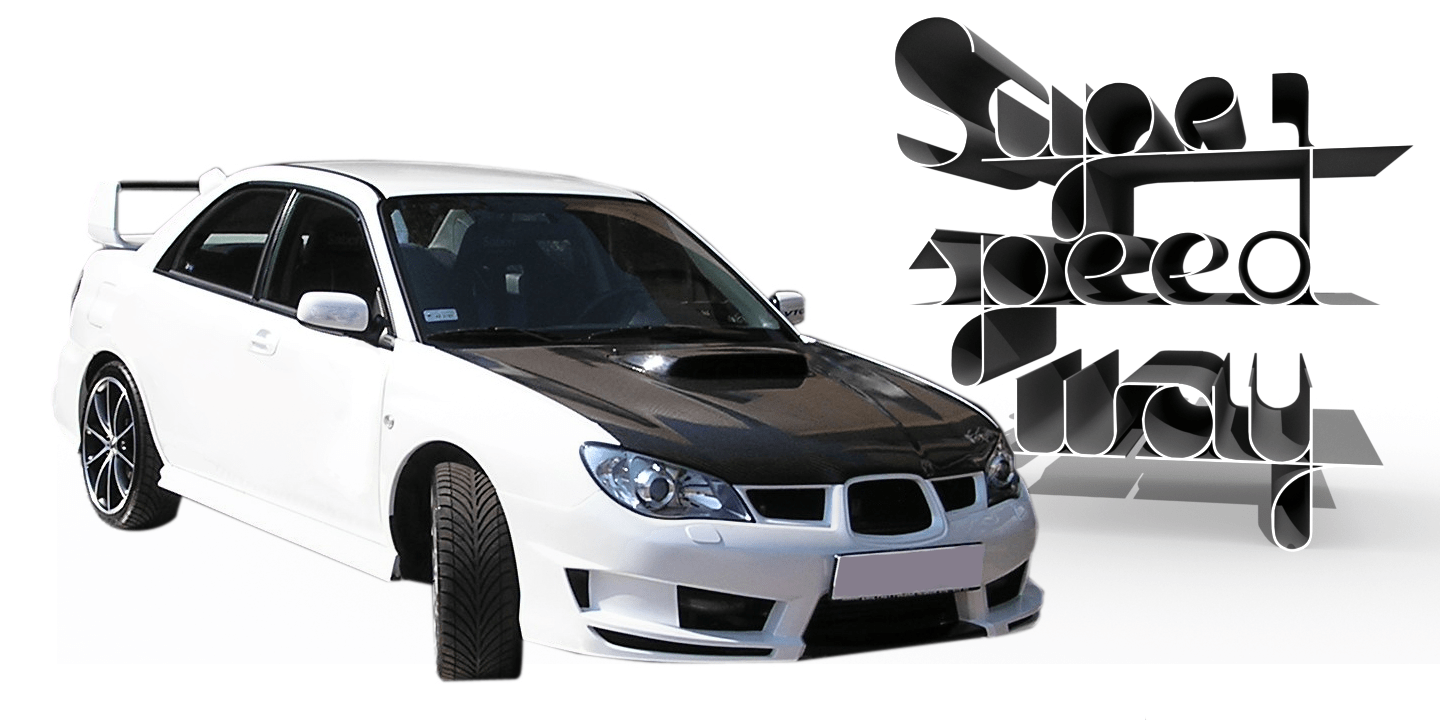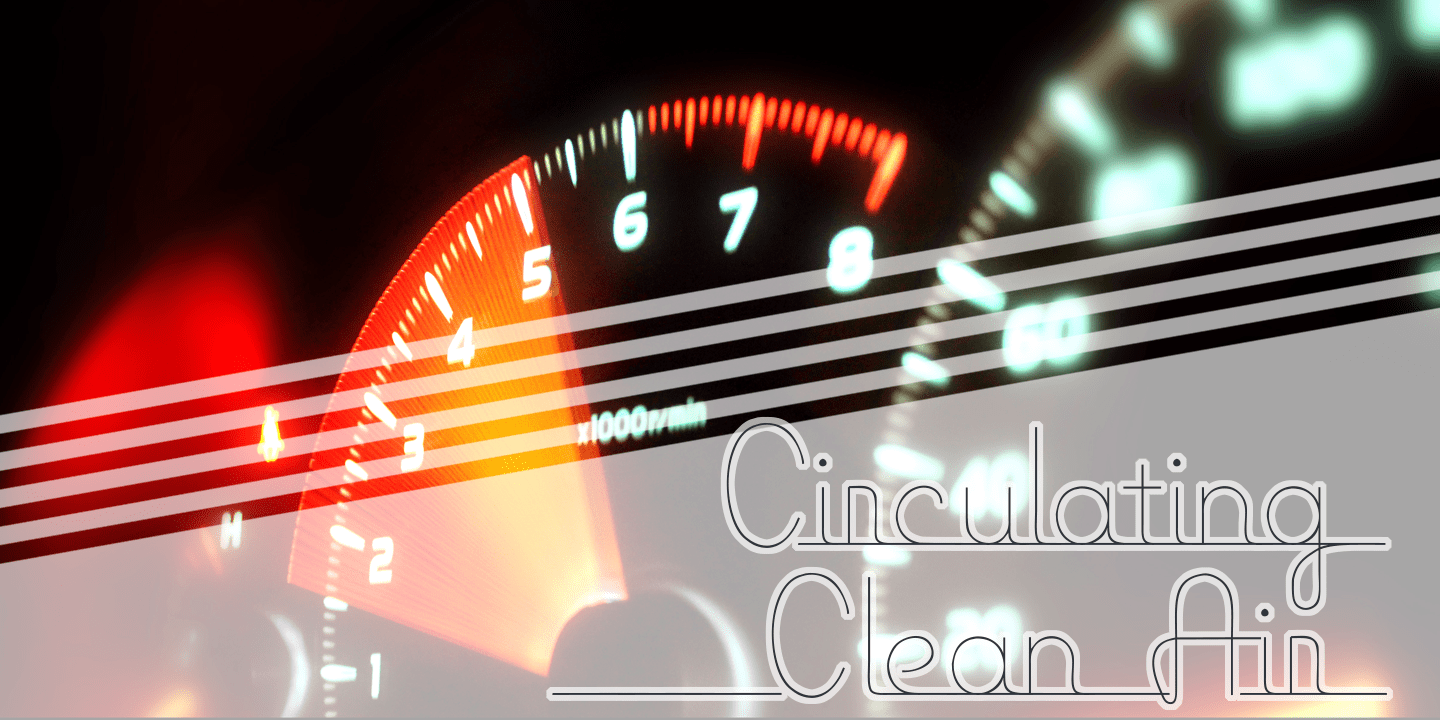
Baseline Script
Font Family by Open Window
Baseline Script is a super sleek hand drawn mono line font. Its also very thin which gives it a light aerodynamic quality, perfect for slipstreaming. Its default underlined style is perfect for headings and its complimentary unlined style is a perfect for larger bodies of text.
Baseline Script Unlined
Baseline Script Regular